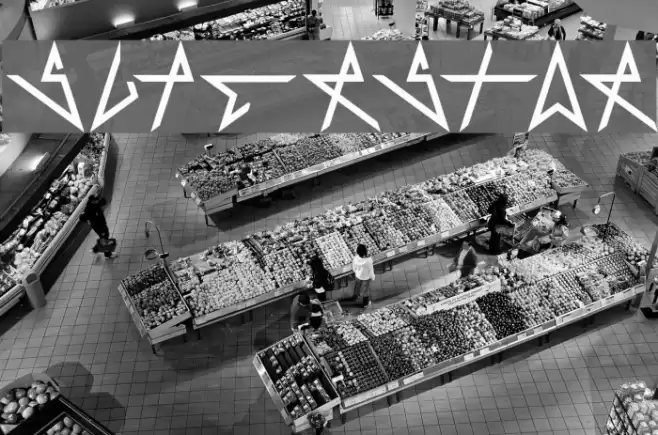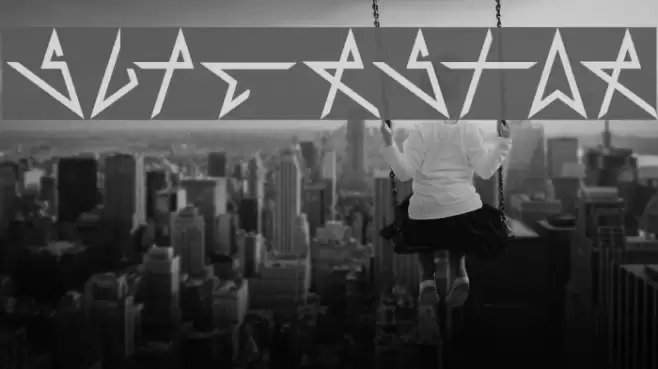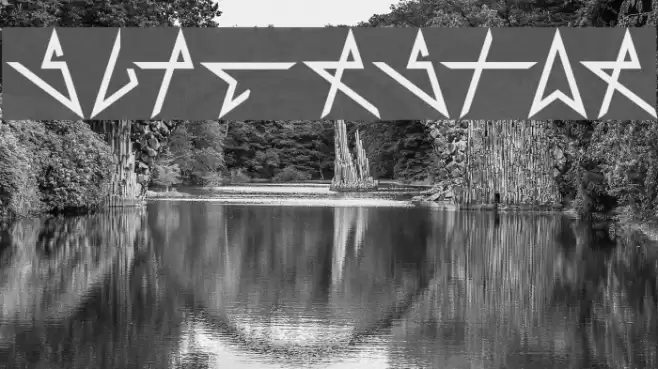
Superstar Font
Superstar Description
This font features a bold, angular design with sharp edges and a futuristic aesthetic. Each character is constructed with a series of straight lines and pointed angles, giving it a dynamic and edgy appearance. The uppercase letters are particularly striking, with a consistent geometric style that suggests movement and energy. The lowercase letters maintain this angular theme, offering a cohesive look across the alphabet. The numbers and special characters are equally bold, integrating seamlessly with the overall design. This font is highly decorative, making it ideal for projects that require a strong visual impact.
A bold, angular font with a futuristic and edgy design from Uncategorized fonts.
- Proposed Projects: Ideal for music album covers, video game titles, sci-fi movie posters, and edgy branding projects.
- Overall Style: Futuristic, Edgy